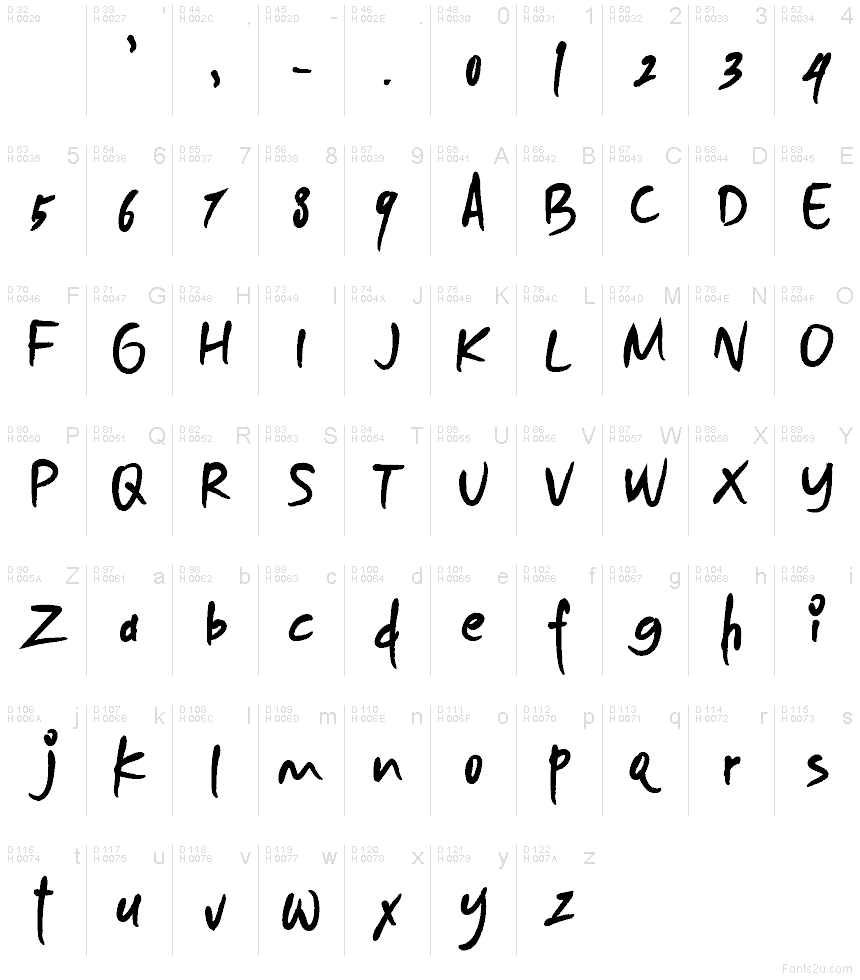
Japanese Ramen
Japanese Ramen font designed by Fontherapy is a free brush font channeling the aesthetic of hand-drawn strokes. Its style carries an appealing personal touch with a casual laid-back look that allows the different characters to effortlessly connect creating a readable yet interesting lettering. The natural flowing energy captured gives it an expressive flair.
Use Japanese Ramen in writing restaurant menus, designing packaging boxes, creating T-shirts and other apparel designs, labels for gourmet food products, headers for newspapers/magazines, brand identity through logos/packaging design as well as online use in website titles/headings and social media posts/stories.